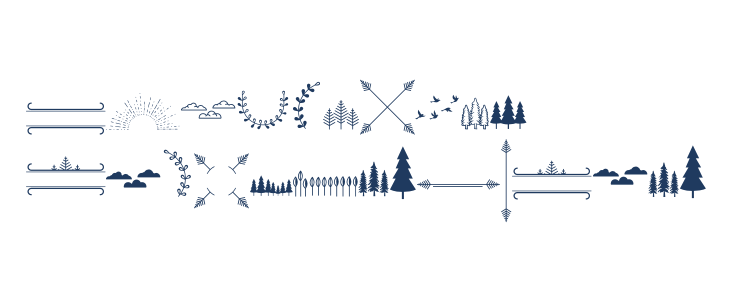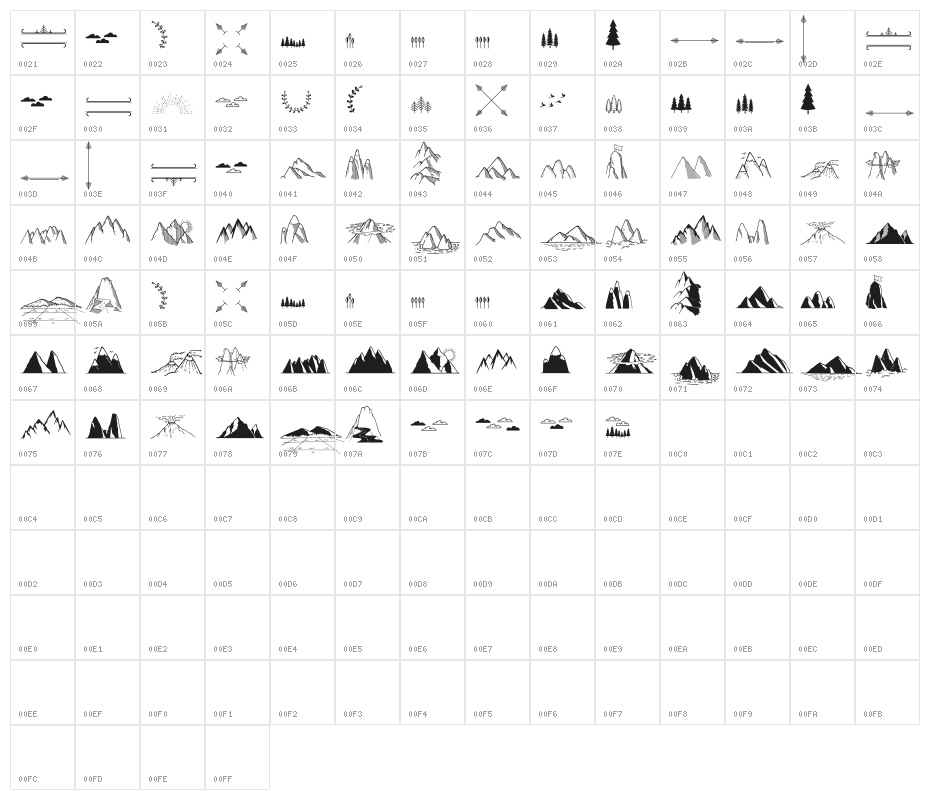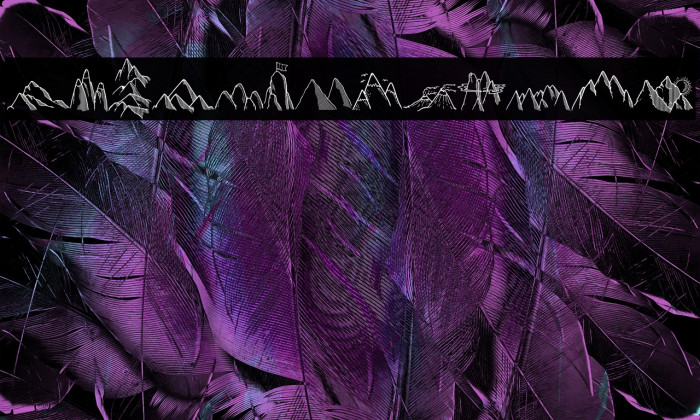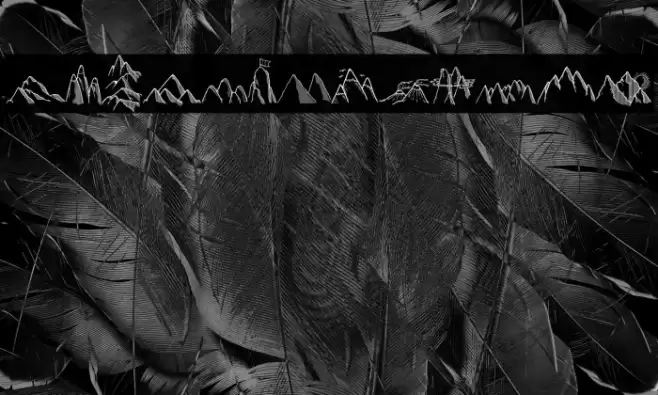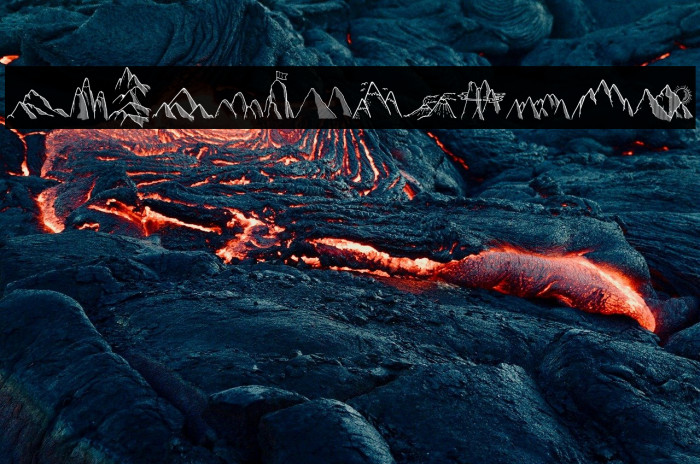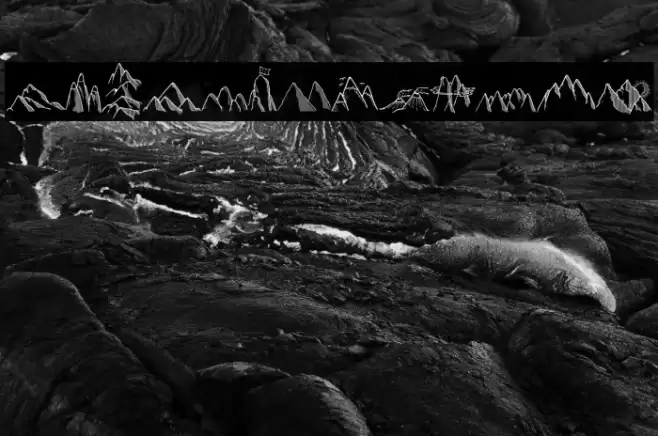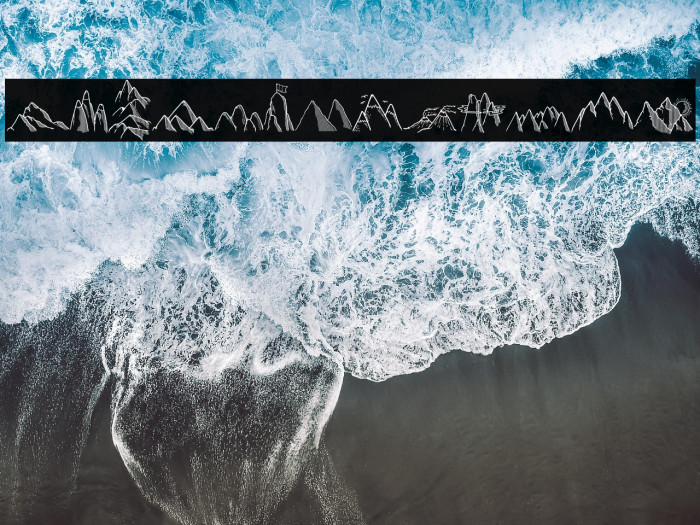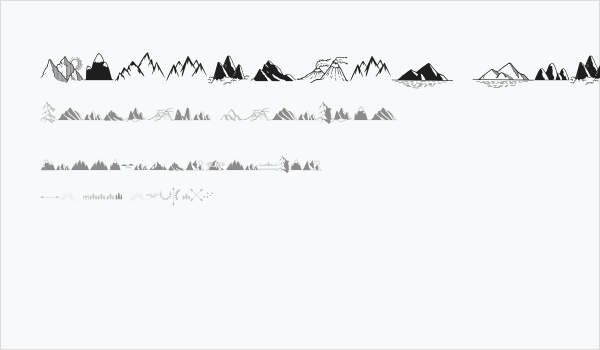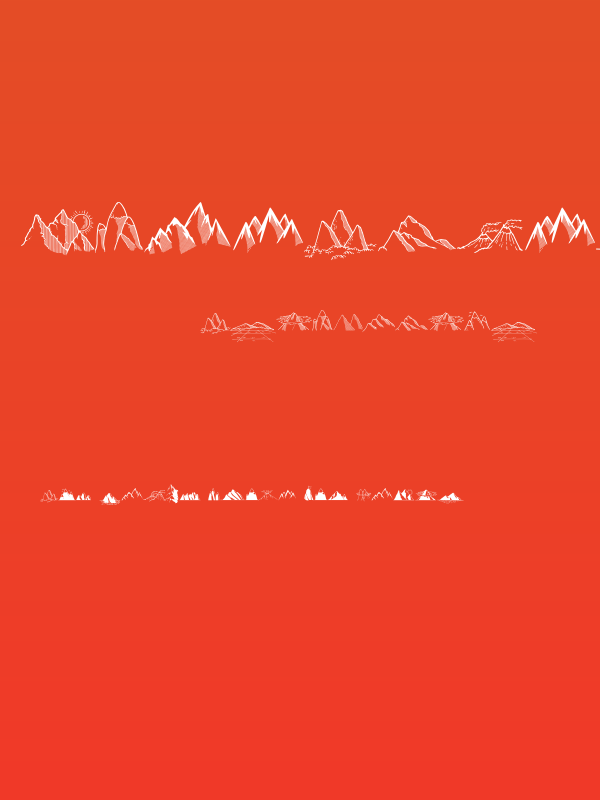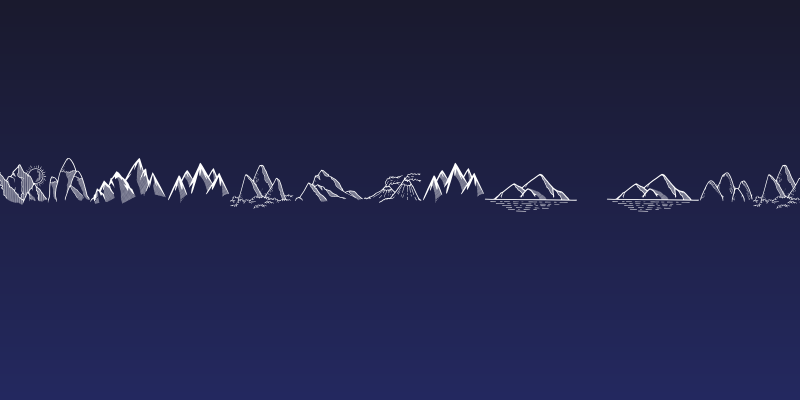
Mountains Set Font
Mountains Set Description
A collection of hand-drawn mountain silhouettes, nature dividers, arrows, trees, clouds, and decorative elements in both outline and filled styles. The set features a mix of thin and bold lines, with a whimsical, sketch-like appearance suitable for creative projects.
| Overall Style | Decorative, Hand-drawn, Whimsical |
| Use Case | Logos, Decorative elements, Dividers, Themed graphics |
| Proposed Projects | Outdoor branding, adventure posters, travel blogs, scrapbooking, invitations, logo accents, and decorative dividers. |